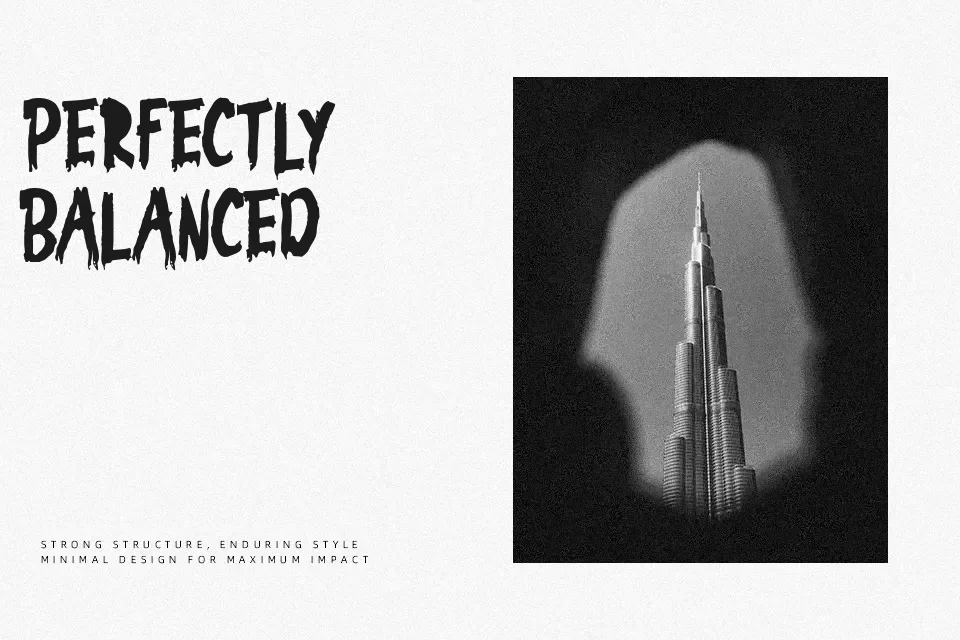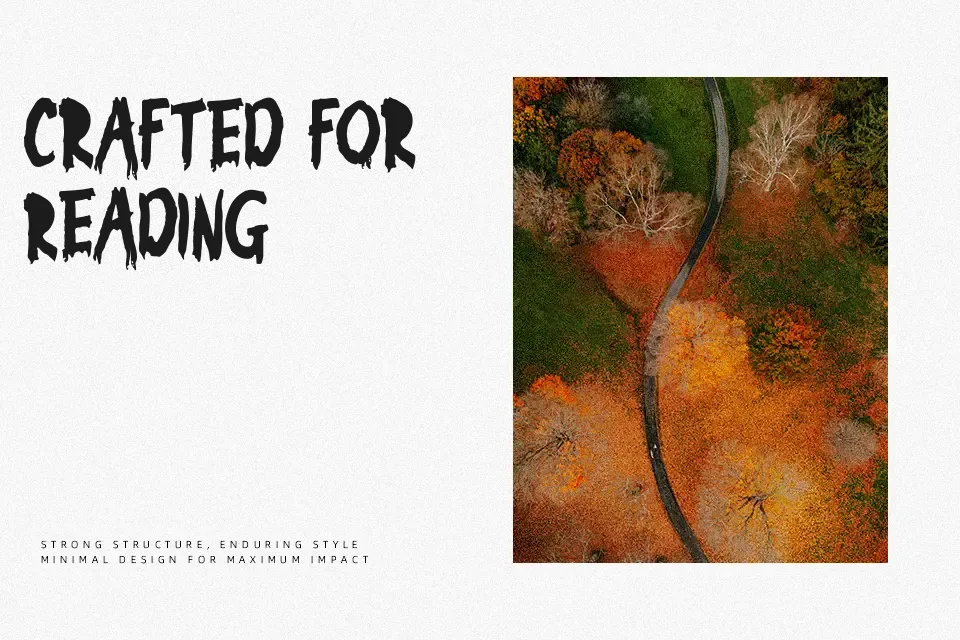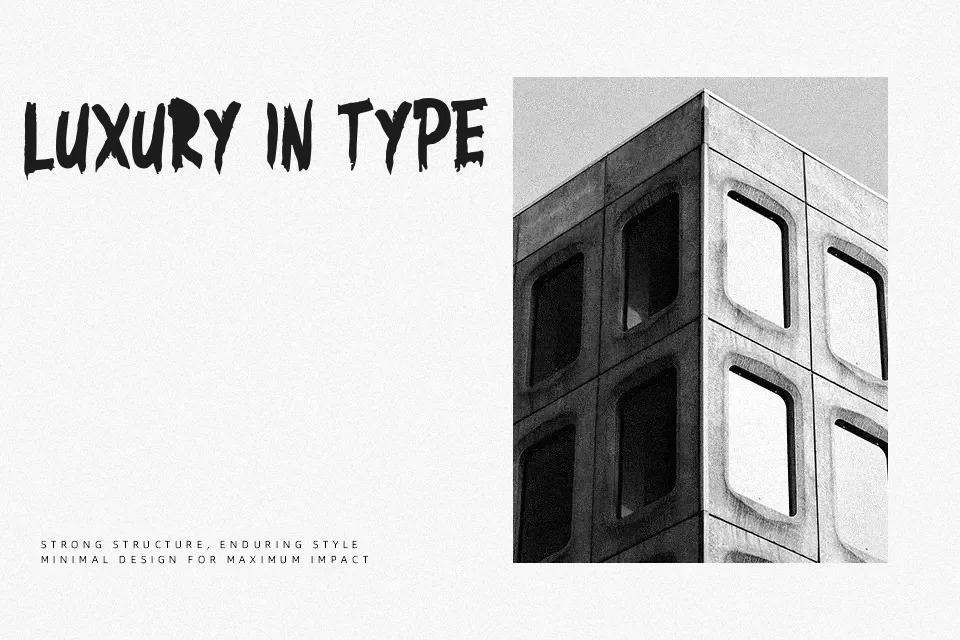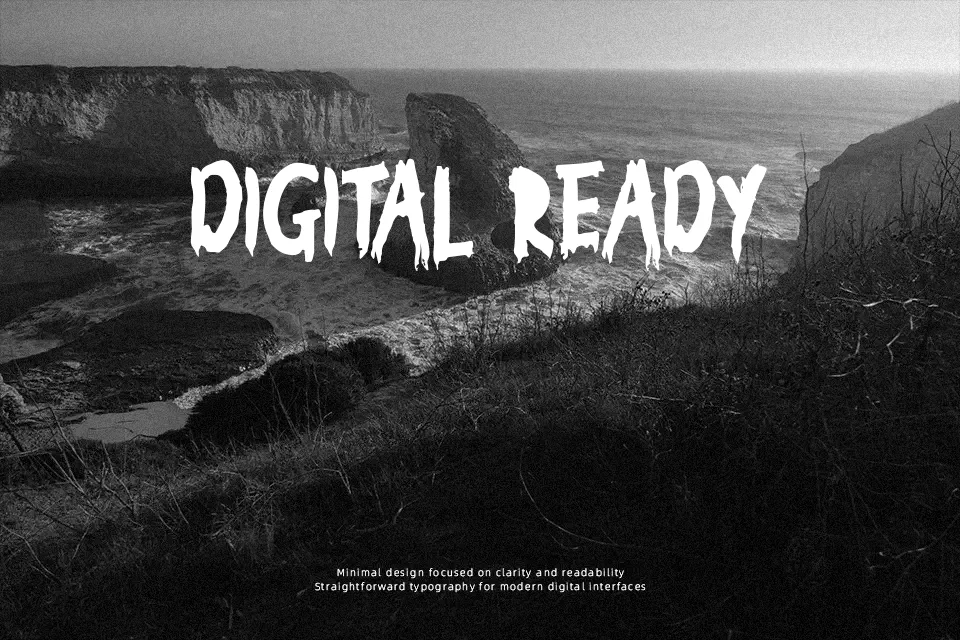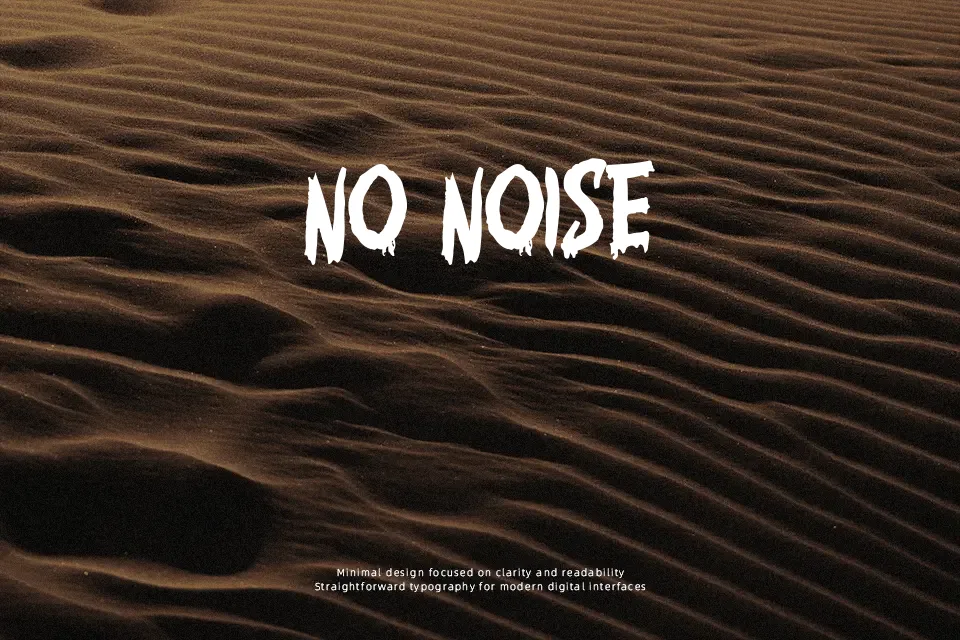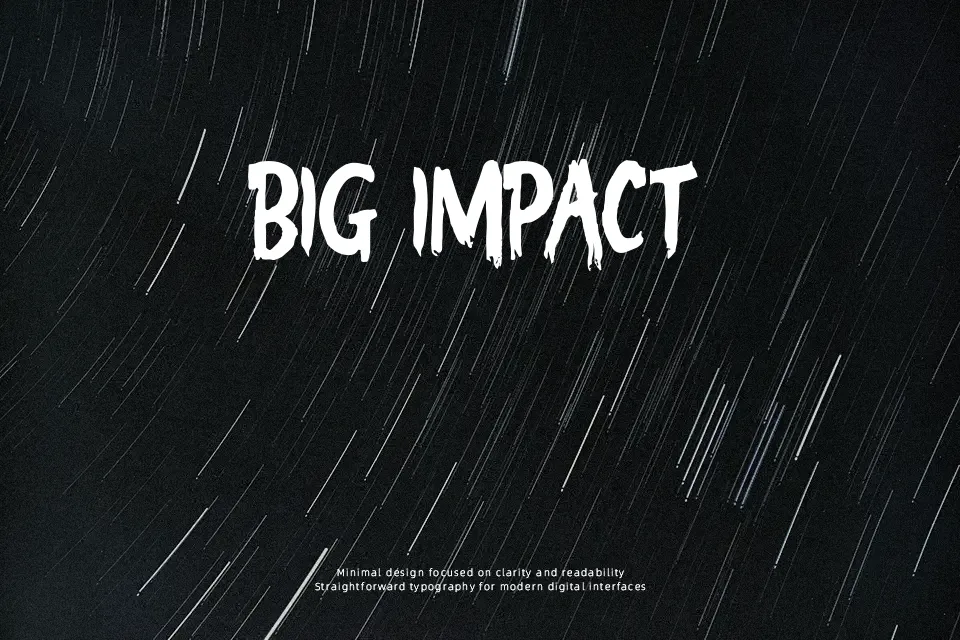
The Incredible Demon Font
The Incredible Demon Font features heavily stylized letterforms built with sharp terminals, raw distress textures, and aggressive stroke contrast. Characters exhibit slightly condensed proportions with compact horizontal spacing, creating a dense and imposing visual rhythm across uppercase lines. Because the intricate silhouettes and spiky perimeter details dominate the structure, the letterforms remain easy to distinguish in short display text but quickly break down in dense editorial settings. This typeface performs best when displayed at larger sizes where its irregular edges can breathe, making extended body text impractical due to diminished legibility.
Best For: horror movie posters, halloween party invitations, heavy metal album covers, haunted attraction signage
Not Ideal For: continuous reading, mobile ui labels, legal agreements, corporate annual reports
Perfect for film, halloween, and headline, with a bold and condensed style.